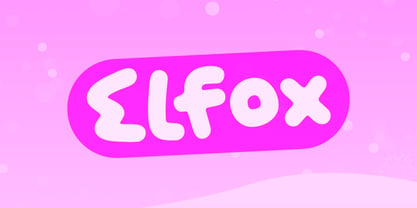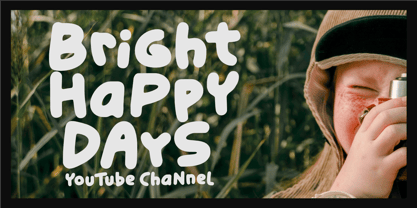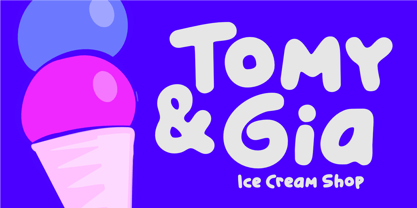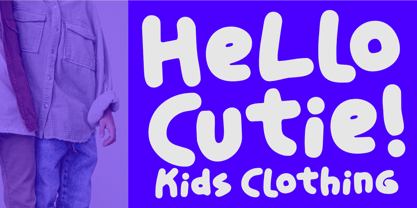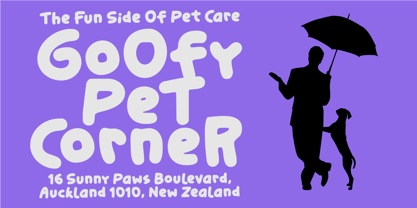
Elfox
by Epiclinez
The Elfox Font Family was designed by Aldy Sidik and published by Epiclinez. Elfox contains 1 styles. More about this family
Elfox is a cute, playful, kids-friendly, bold display font designed to bring joy, energy, and personality to every project. With its rounded shapes, chunky letterforms, and cheerful character, Elfox is perfect for creating eye-catching designs that appeal to children and families while remaining clean and easy to read.
Whether you're designing a fun logo, colorful packaging, children's books, toy branding, or playful social media graphics, Elfox delivers a warm and memorable look. Its bold style makes headlines pop and helps brands stand out with a friendly, approachable personality.
Designers: Aldy Sidik
Foundry: Epiclinez